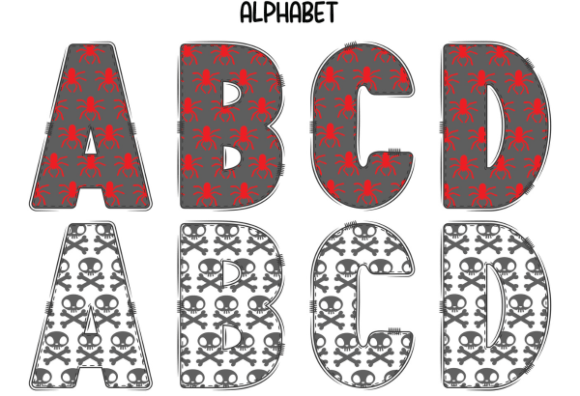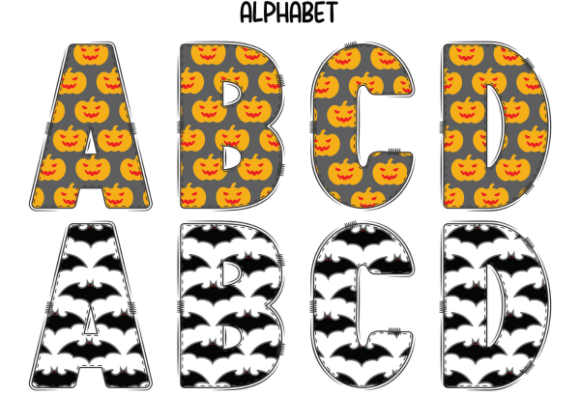
Halloween Font: Add a Spooky Touch to Your Designs
Are you looking for a font that captures the essence of Halloween? Look no further than the Halloween Font, a cute and fun Halloween-styled detailed colored font that’s perfect for adding a spooky touch to your designs. In this article, we’ll explore the features of this font, its compatibility with various design programs, and provide tips on how to use it to make your creative ideas stand out.
What is Halloween Font?
Halloween Font is a unique and creative font that’s designed to bring a touch of Halloween magic to your designs. With its intricate details and colorful appearance, this font is perfect for use in Halloween-themed designs, horror-themed projects, or any creative work that requires a playful and spooky touch.
Key Features of Halloween Font
- Cute and Fun Design: The Halloween Font features a cute and fun design that’s perfect for adding a playful touch to your designs.
- Detailed Colored Font: This font is a detailed colored font that’s sure to make your designs stand out.
- Use it for Halloween-themed Designs: The Halloween Font is perfect for use in Halloween-themed designs, such as invitations, party decorations, and more.
- Experiment with Different Colors: The colored version of this font offers endless possibilities for creative experimentation. Try out different colors and combinations to create unique designs.
- Pair it with Other Fonts: The Halloween Font can be paired with other fonts to create interesting and unique typography.
The Halloween Font is a unique and creative font that’s perfect for adding a spooky touch to your designs. With its cute and fun design, detailed colored appearance, and compatibility with various design programs, this font is sure to make your creative ideas stand out. Whether you’re a designer or crafter, the Halloween Font is a must-have for any Halloween-themed project. So why wait? Download the Halloween Font today and start creating!